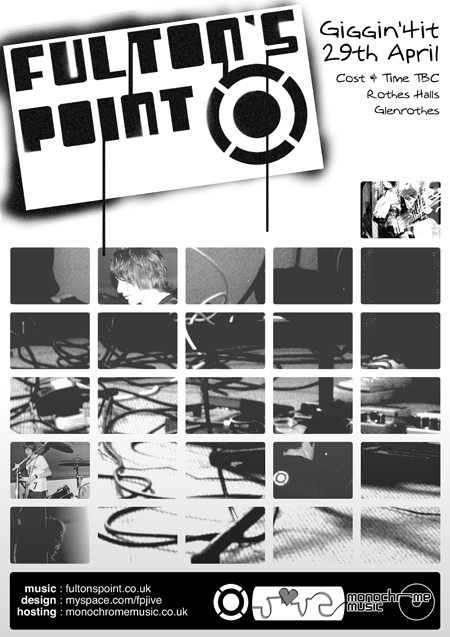
The handwritten style of font at the top... I don't like it but I'm feeling uninspired as to what to change it to. I used a custom font for the logo (it's on all the stuff) and Helvetica (my Mac's still new >_>) at the bottom...
Anyone have any ideas/suggestions on what font to use instead of the handwritten one? Something bold/blocky would be quite appropriate I think.
I actually rewroye it in my hand writing - see below.